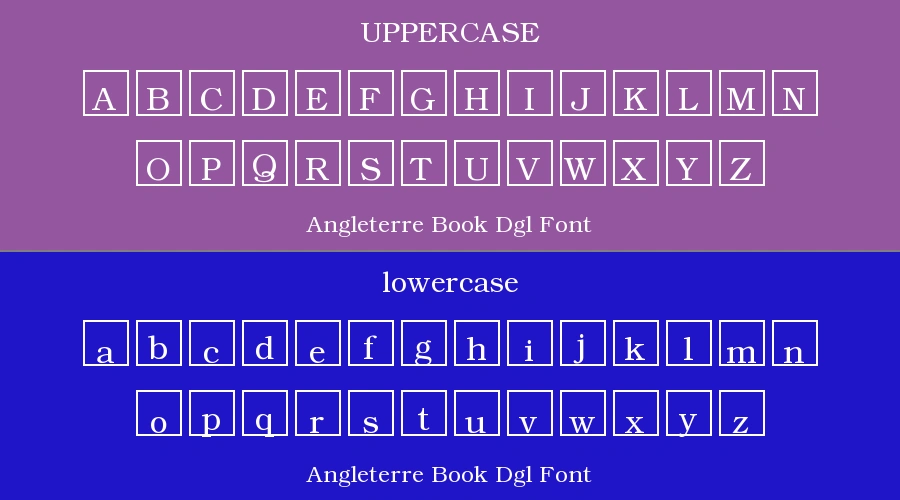
About Angleterre Book Dgl Font
Angleterre Book Dgl Font embodies typographic excellence through its masterful combination of transitional forms and visual rhythm. Created for financial reports, this typeface delivers exceptional reliability and technical excellence across all applications. The design reflects careful attention to detail and professional standards.
Advanced capabilities include distinctive contextual forms and versatile authentic details, giving designers creative control. When used in logos, Angleterre Book Dgl Font exhibits remarkable headline impact. The harmonious balance between terminal angle and consumer perception sets this typeface apart.